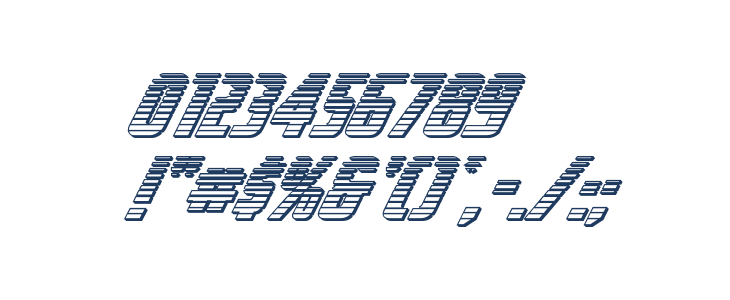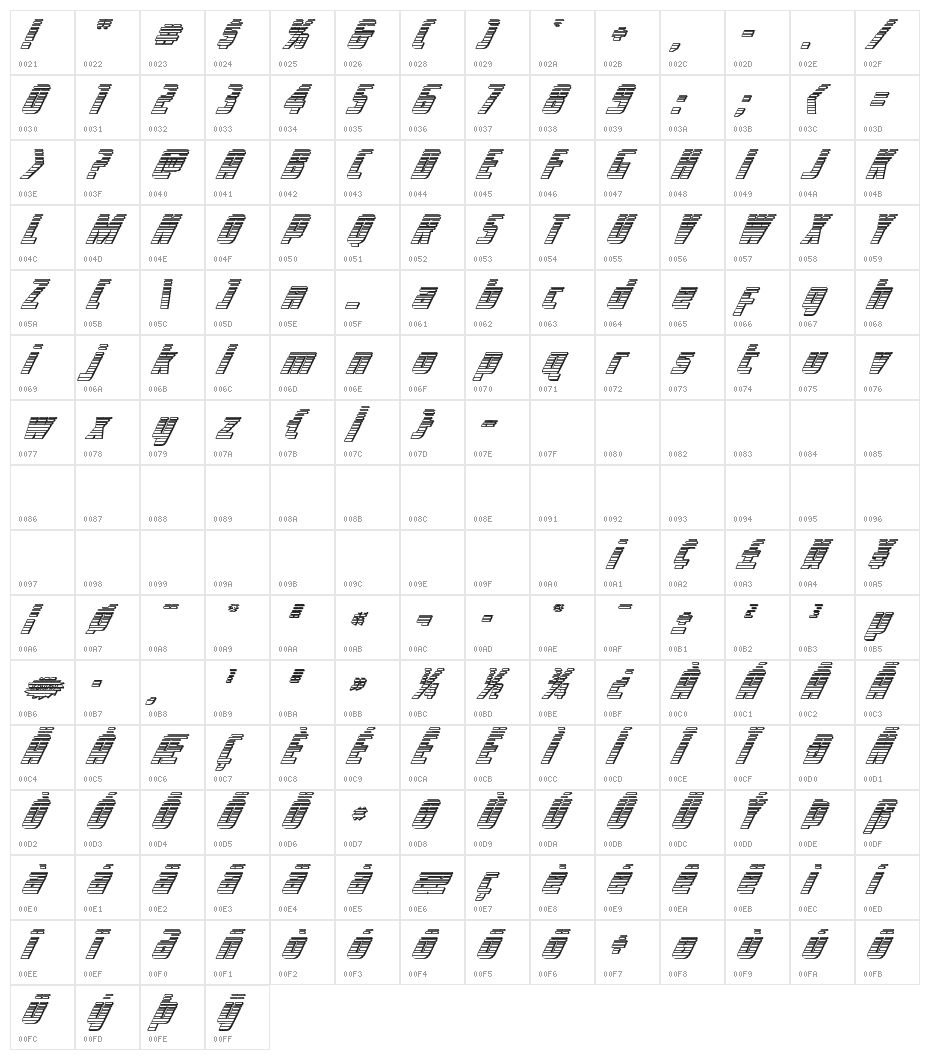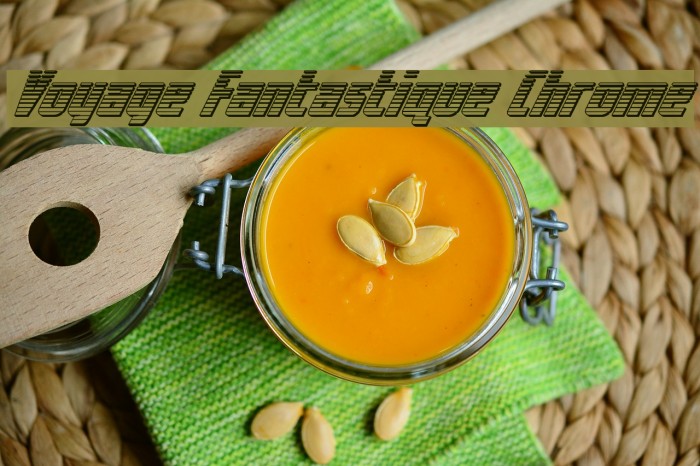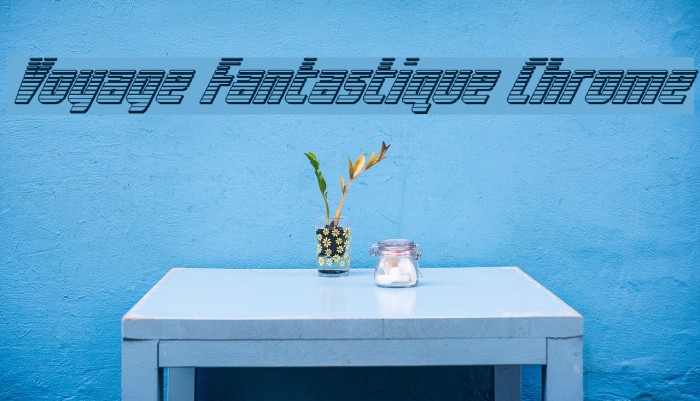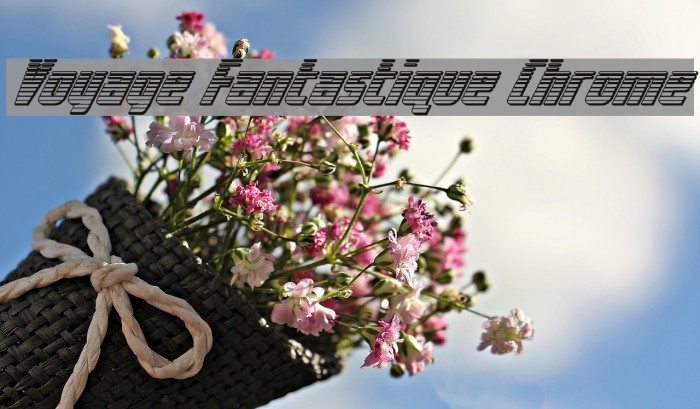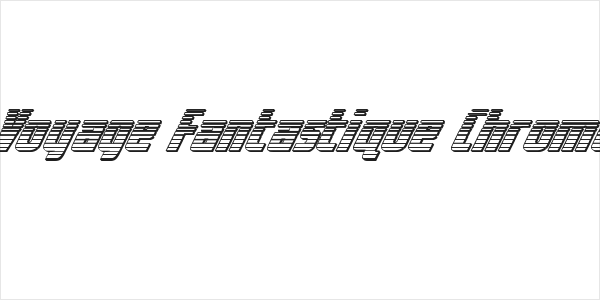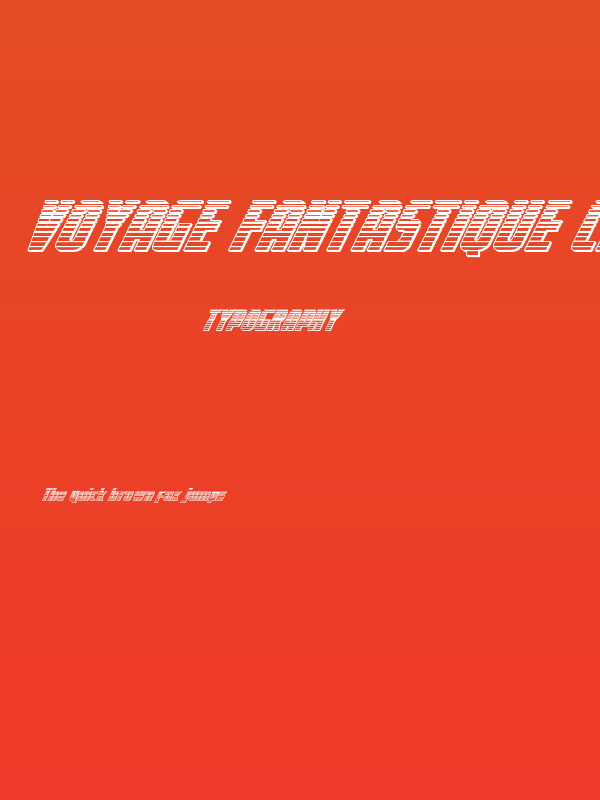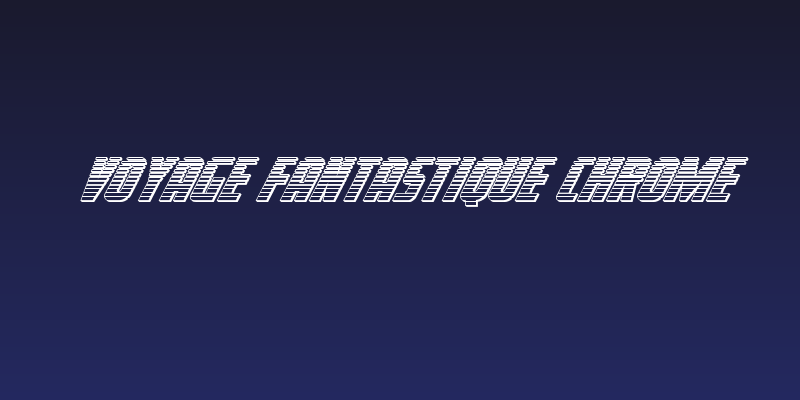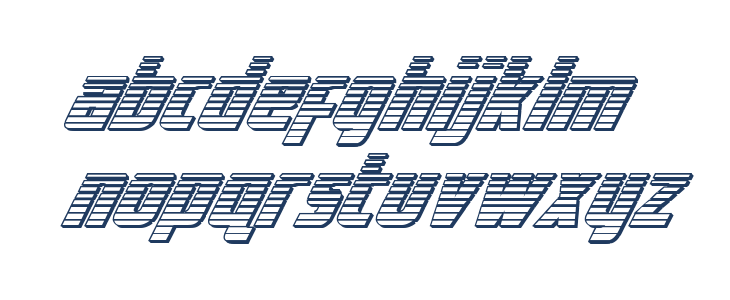
Voyage Fantastique Chrome Font
Voyage Fantastique Chrome Description
This font features a bold, futuristic design with a chrome-like appearance. Each character is constructed with a series of parallel lines, creating a three-dimensional effect that suggests movement and depth. The uppercase and lowercase letters maintain a consistent style, with sharp angles and a slight slant that adds to the dynamic look. Numbers and special characters follow the same design principles, ensuring uniformity across all glyphs. The font's unique style makes it ideal for projects that require a modern and eye-catching aesthetic.
| Proposed Projects | Ideal for sci-fi themed designs, video game titles, futuristic branding, and posters. |